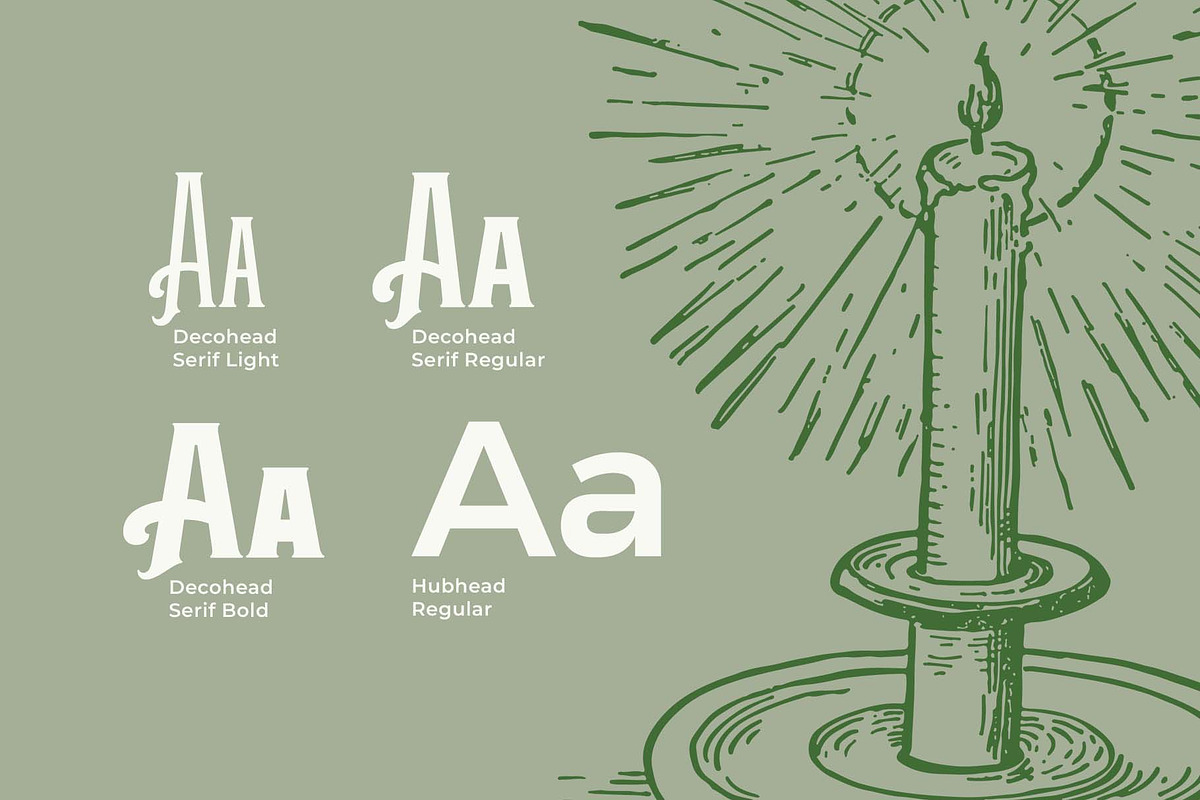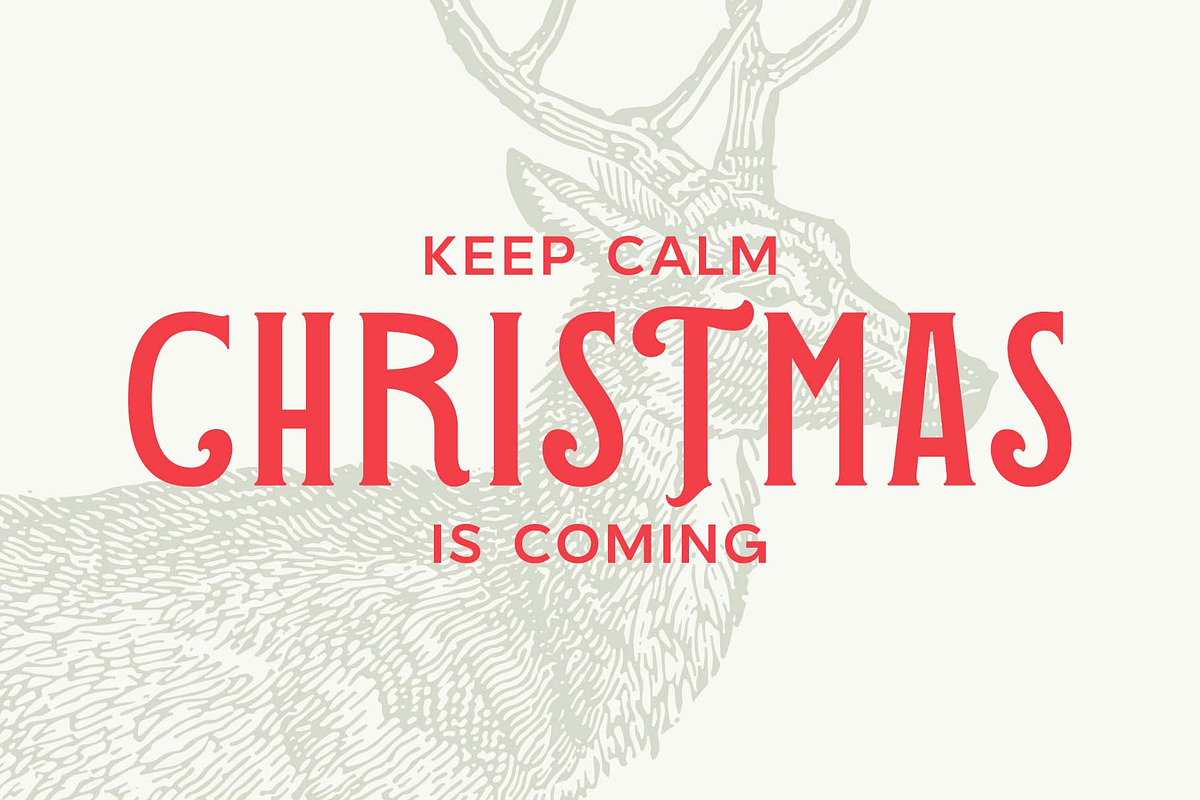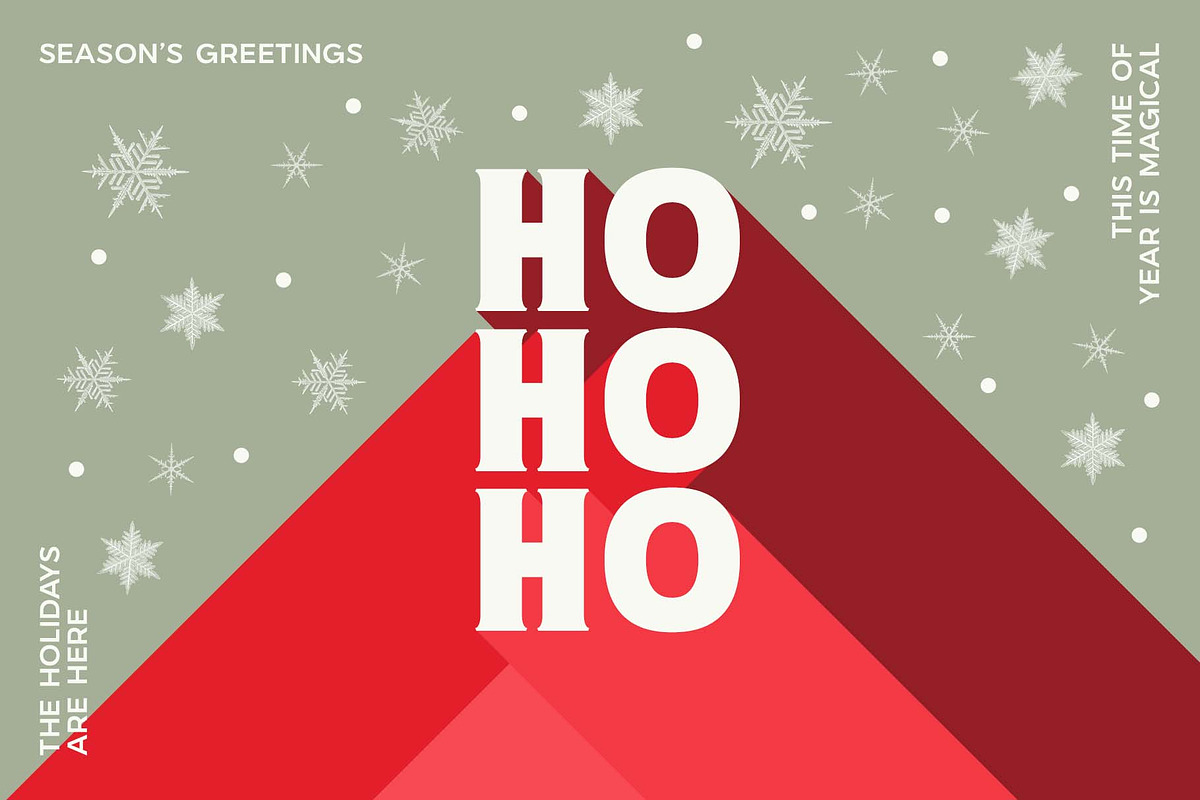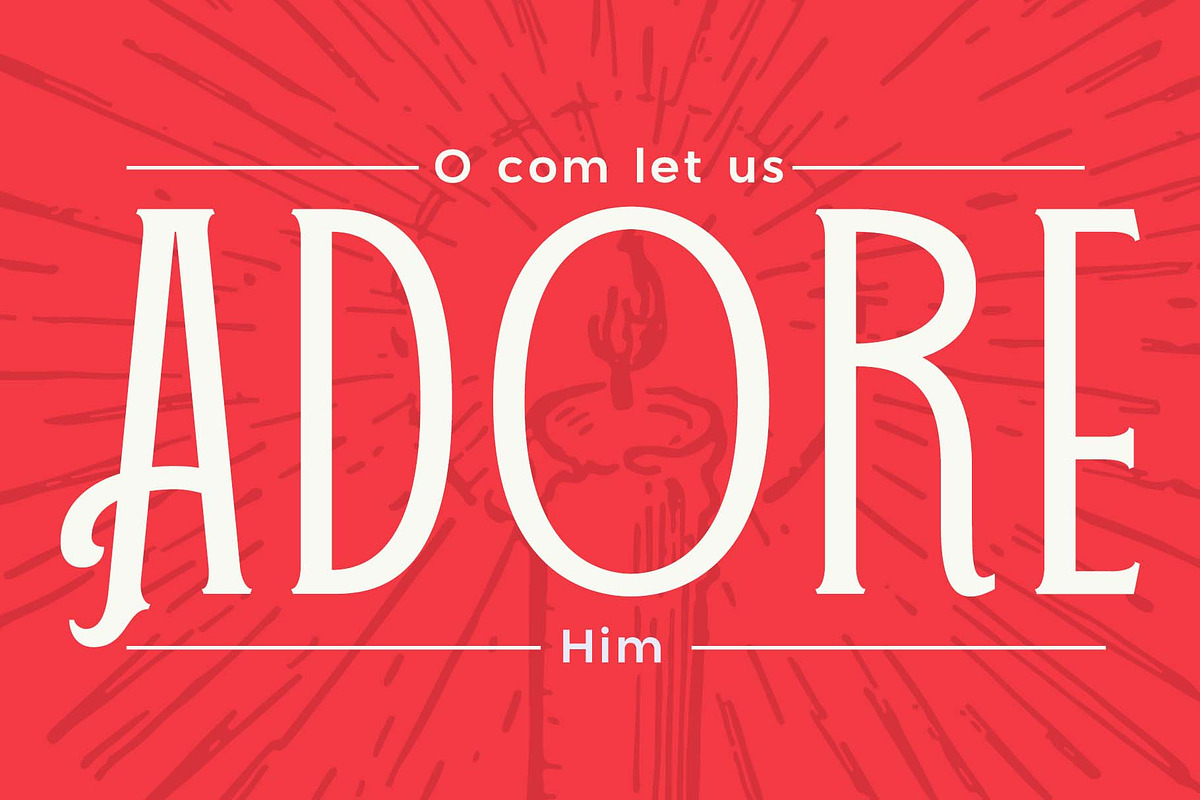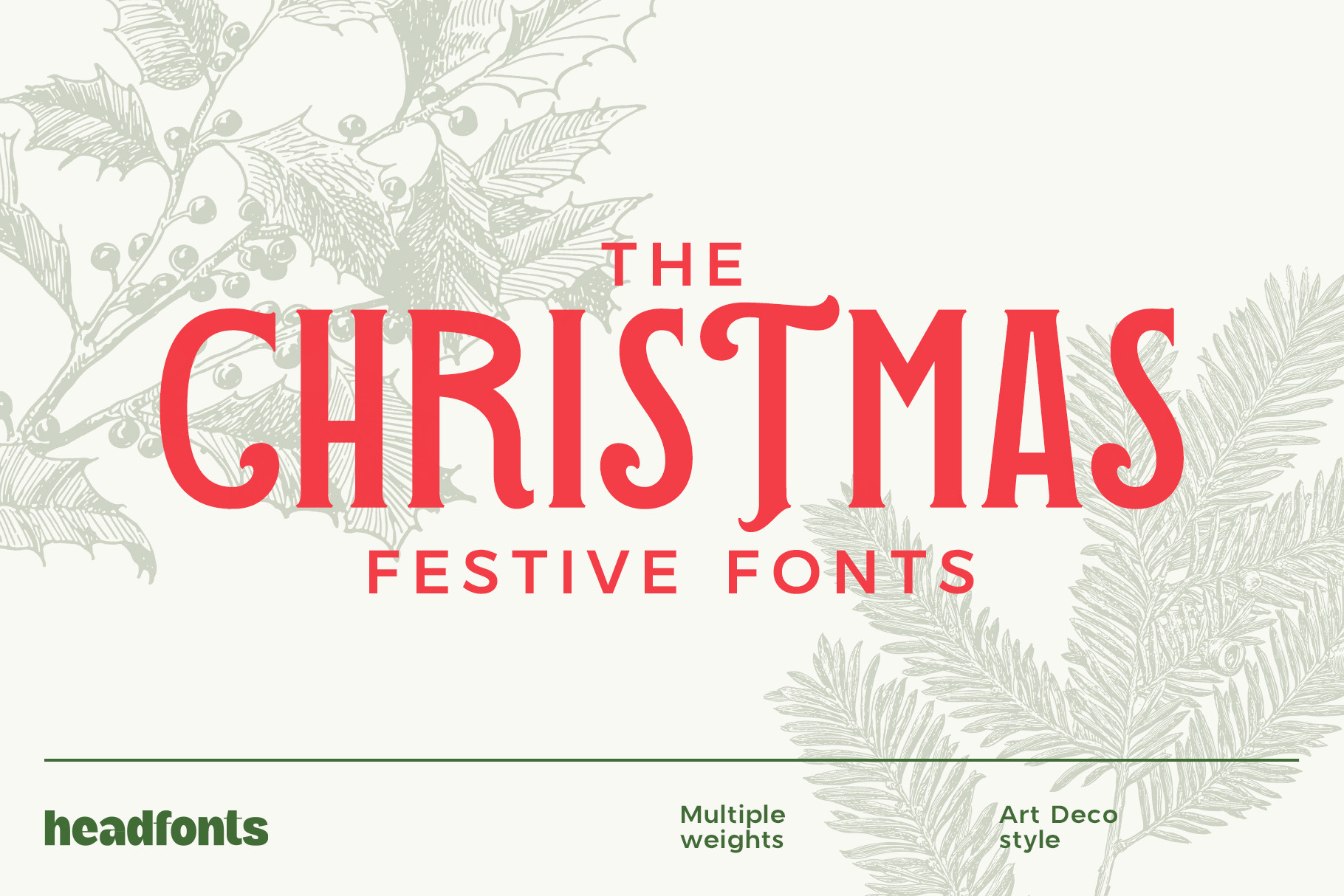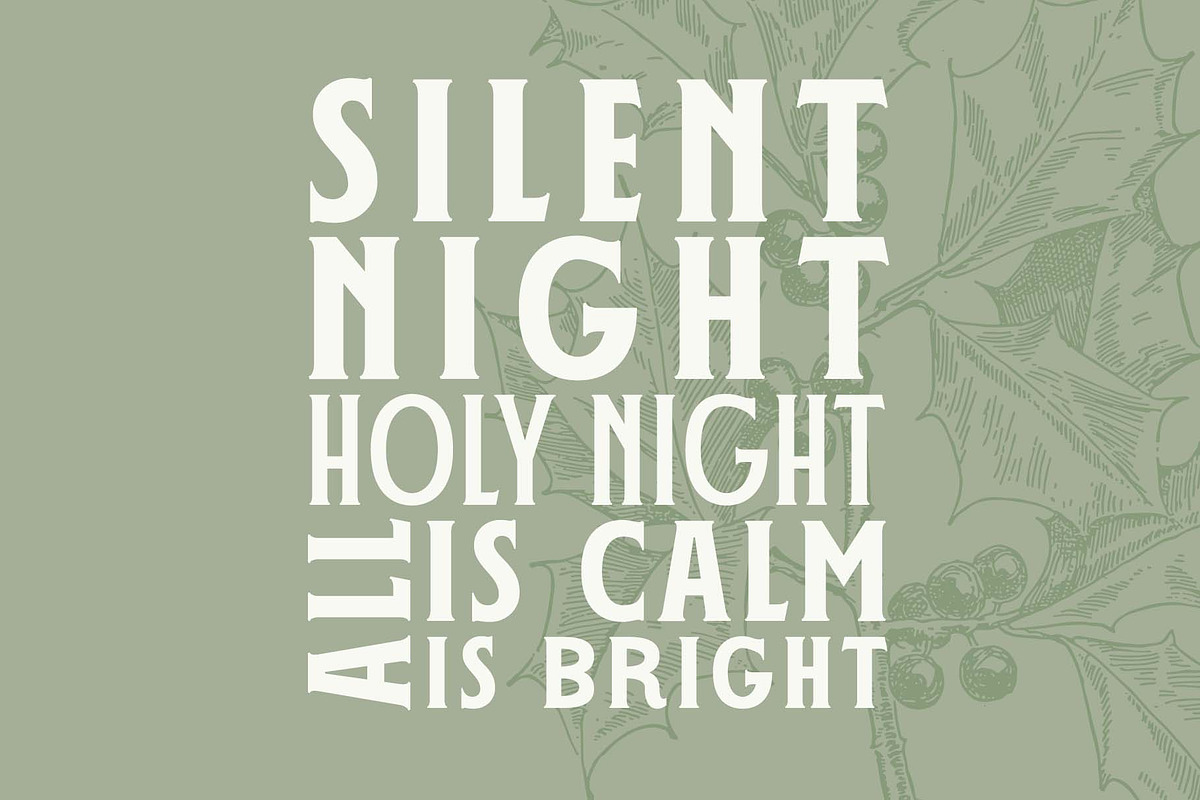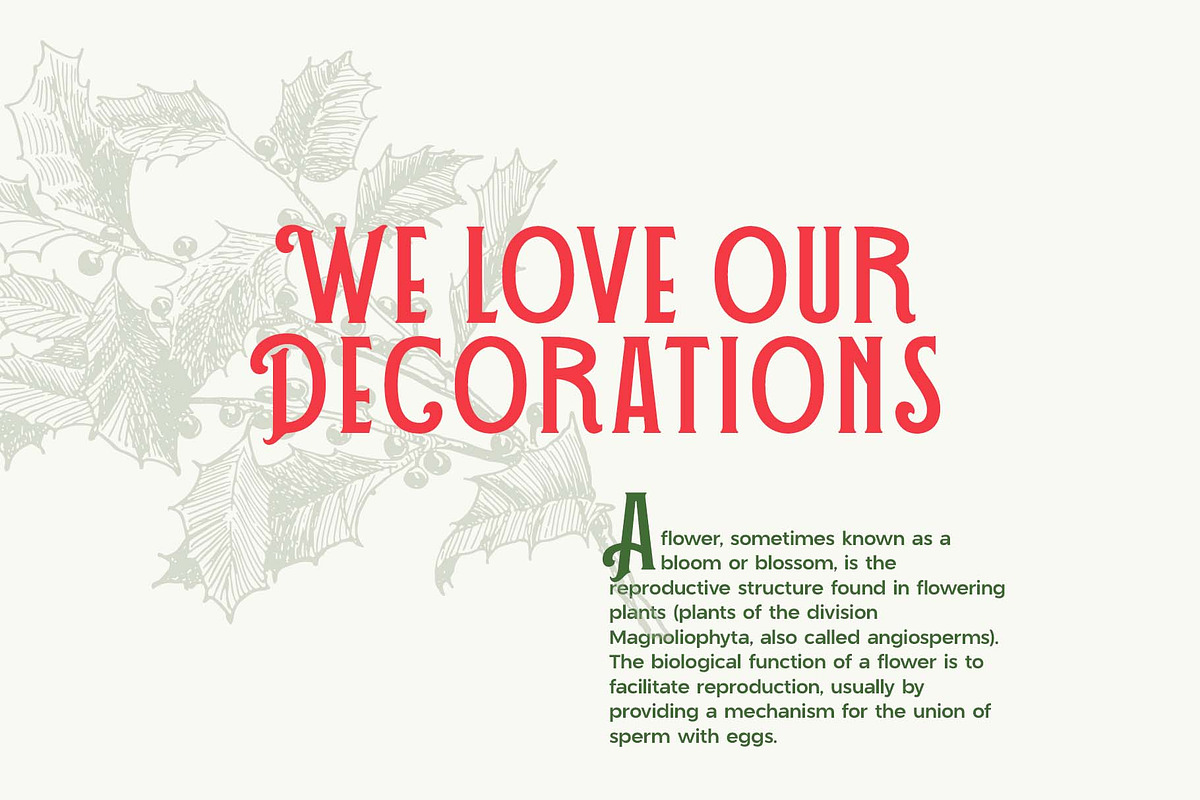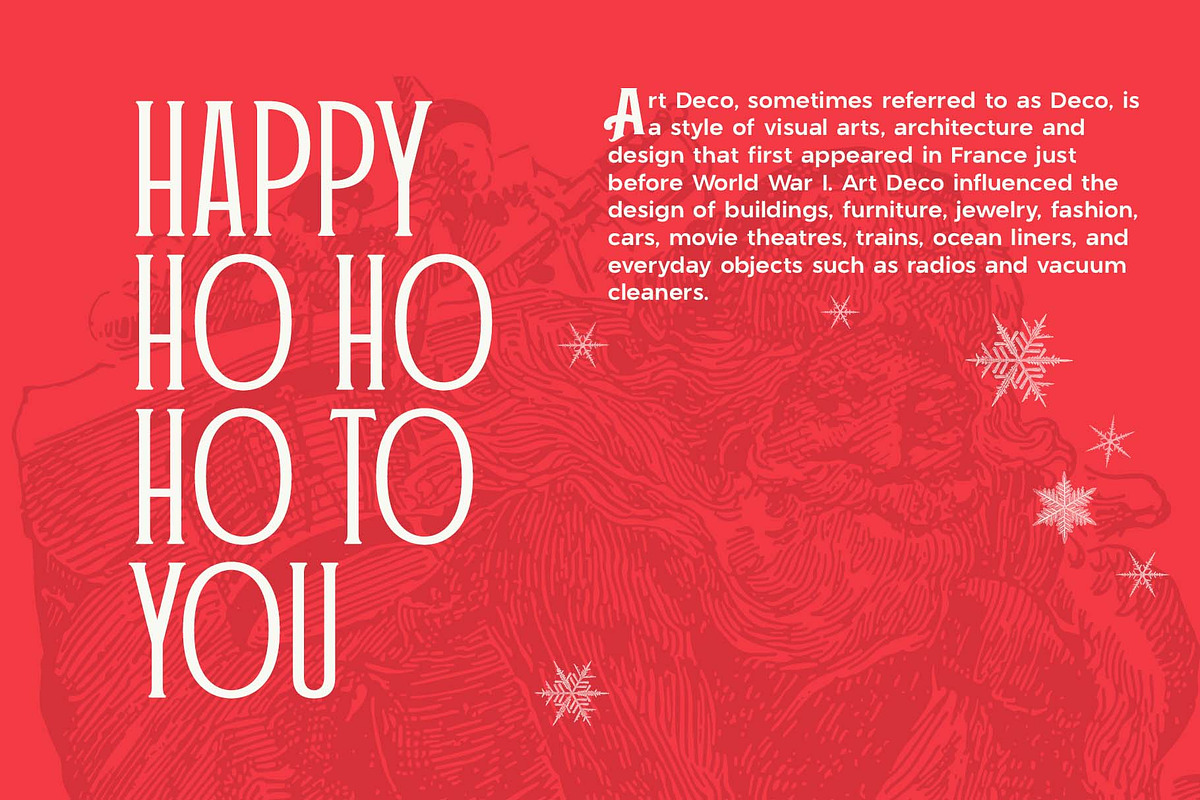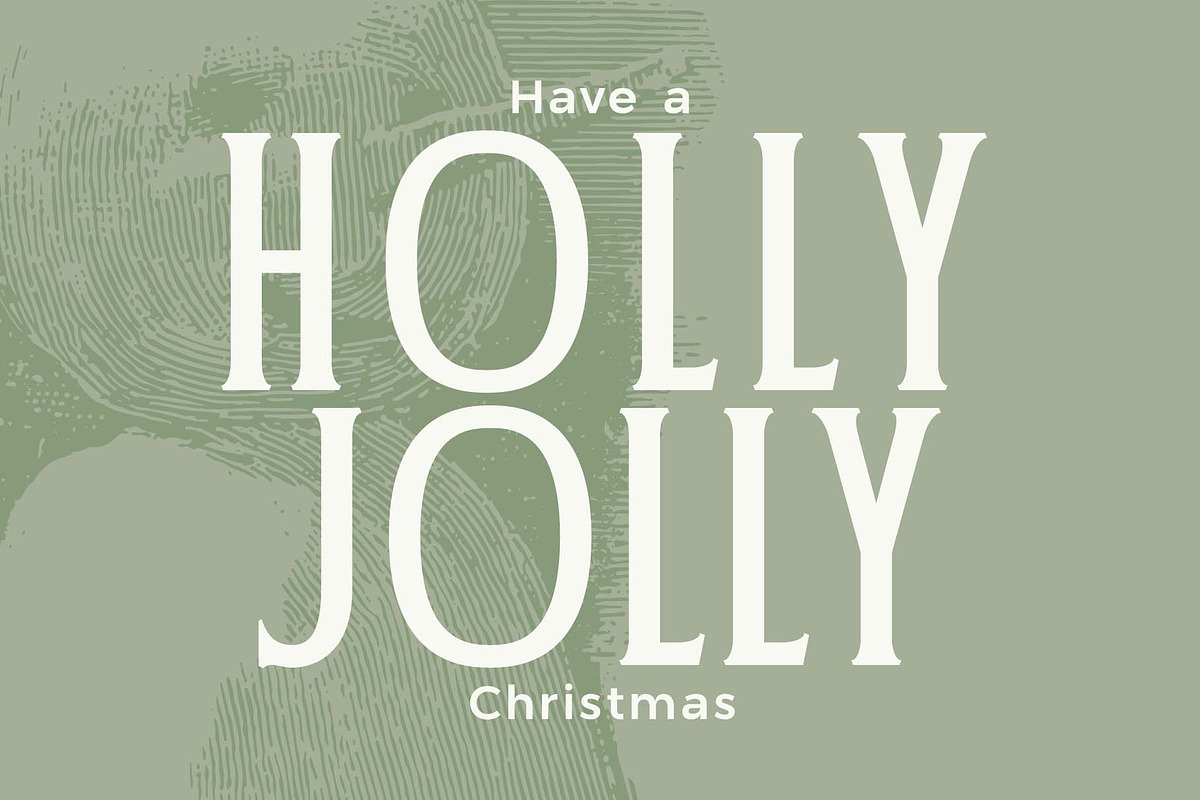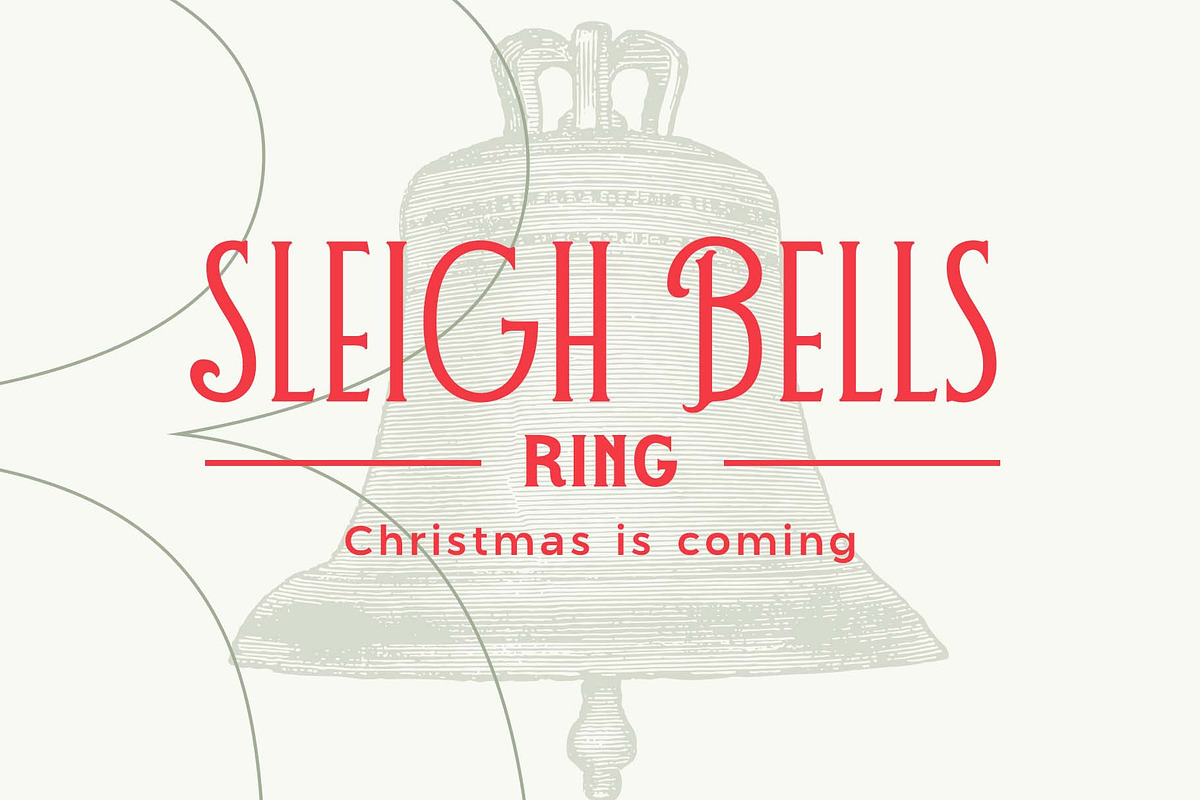
The Christmas Font Duo – Elegant & F
The Christmas Font Duo combines the sophisticated elegance of Decohead Serif with the playful charm of Hubhead Sans, wrapped in a classy, luxurious Art Deco aesthetic. Perfect for Christmas cards, packaging, seasonal branding, and festive promotions. A refined and versatile font pairing for designers aiming for a unique and upscale holiday vibe.